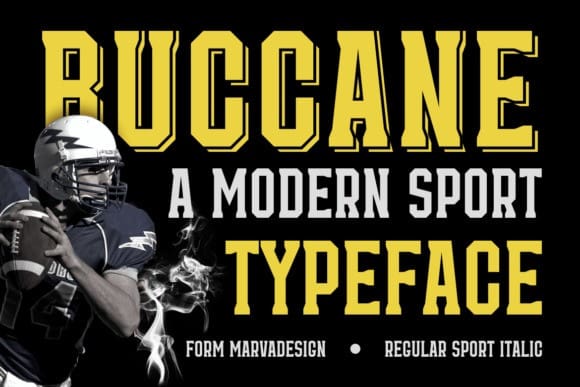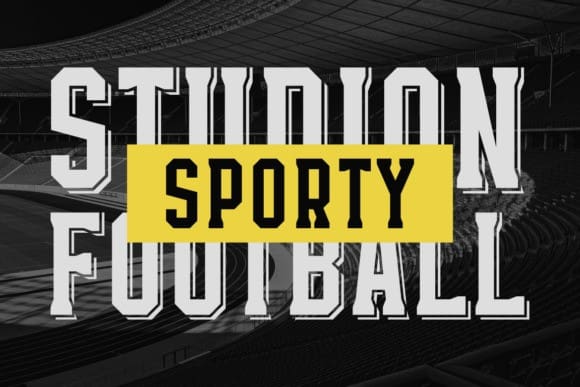
Buccane Font
Buccane Font is a modern, bold display font that commands attention with its assertive letterforms. Its strong and dynamic presence makes a striking impact, suitable for designs that demand a confident and contemporary aesthetic. Ideal for headlines and branding, Buccane adds a bold and powerful flair to your creative expressions.